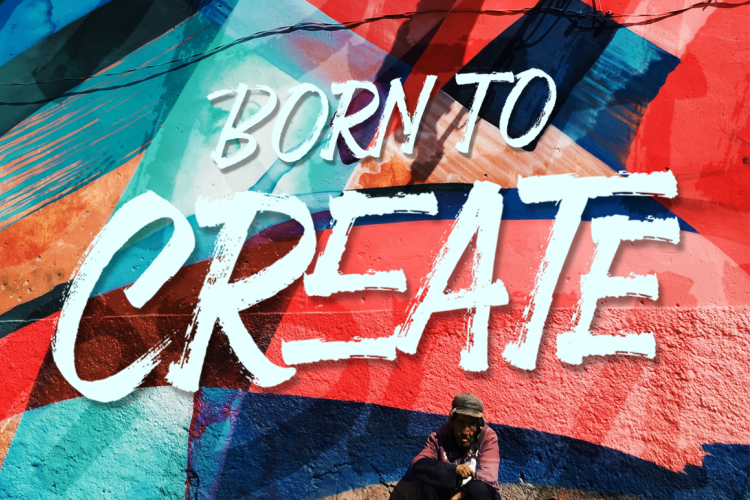
Black Jackal Brush Font
Introducing Black Jackal Font. This hand-made font is well crafted with original dry brush imperfections that make this font perfect for delivering an extremely fearless message in your design without losing the natural impression! It is design and shared by Hasta Type. It’s a modern, handbrush typeface. It has strong, cool yet classy looks. It comes with ALL CAPS Character with some unique ligatures. Black Jackal is great for display, apparel, album, quotes, branding, social media, advertisement and any other projects.